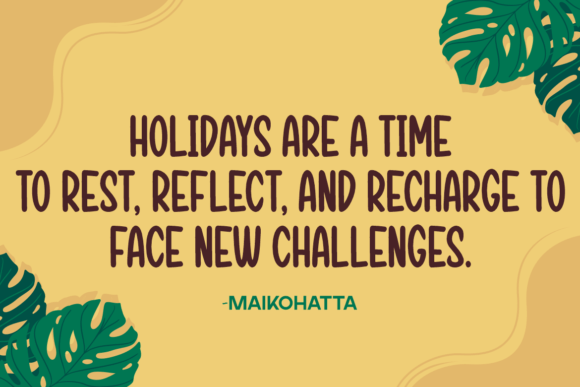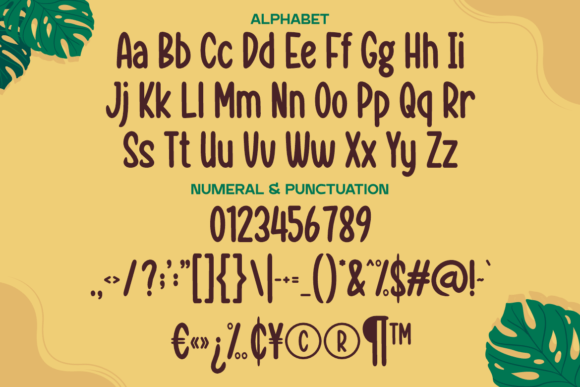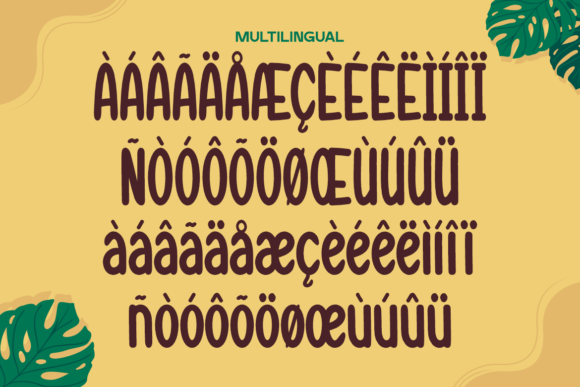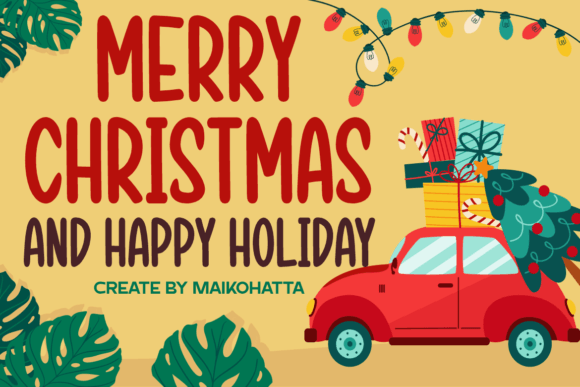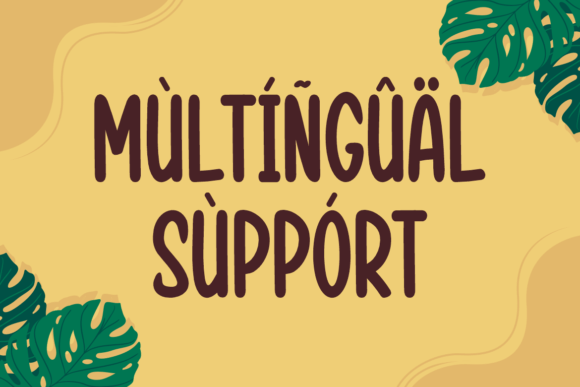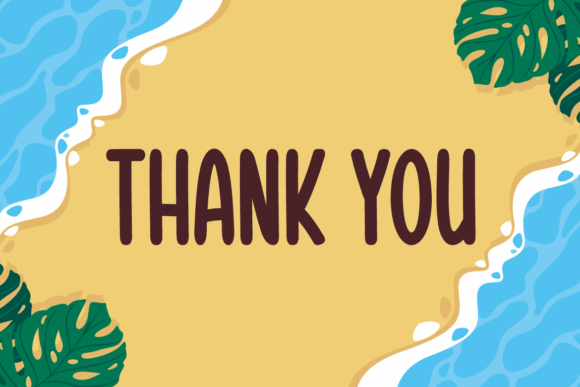
Introduction to Holiday Zone Font
As you sit by the twinkling Christmas tree, surrounded by the warmth and love of the season, you can’t help but feel inspired. The twinkling lights, the festive decorations, and the sound of carols fill your heart with joy and creativity. And then, it hits you – the perfect font to capture the essence of the holiday season. For designers, finding the right font can make or break a creative project, and that’s where the Holiday Zone Font comes in.
This high-quality font is specifically designed to create a Christmas atmosphere and mood, making it a valuable design resource for anyone looking to add a touch of holiday magic to their work. With a transparent background, it’s perfect for graphic designers, greeting card makers, and anyone who wants to add a professional touch to their designs.
Key Features of Holiday Zone Font
- High-quality, unique font design perfect for creative projects and festive designs.
- Features a transparent background, allowing for seamless integration into any design.
- Designed to be versatile and suitable for a wide range of design resources, from digital art to print materials.
- Size: The font family includes multiple styles and weights, including bold, italic, and regular, to cater to various design needs.
- Perfect for adding a festive touch to your design projects, from holiday-themed posters to seasonal greeting cards.
Honest Review: Holiday Zone Font
As a designer, I’m always on the lookout for high-quality design resources to elevate my creative projects. I recently came across the Holiday Zone Font, and I must say, it’s a game-changer.
- ✨ Unique and festive design that’s perfect for the holiday season
- ✨ High-quality font files that are easy to use and customize
- ⚠️ Limited font styles and variations, which might not be suitable for complex design projects
- ⚠️ Transparent background, which can be a challenge to work with if you’re not familiar with design software
Overall, I’m impressed with the Holiday Zone Font’s potential to add a touch of festive flair to any design project. With its unique design and high-quality font files, it’s a valuable resource for designers working on creative projects. However, its limitations might be a drawback for more complex designs. Nevertheless, it’s definitely worth checking out if you’re looking for a fun and easy way to add some holiday cheer to your designs.
The Holiday Zone Font is perfect for a variety of creative projects, including: holiday cards, party invitations, and social media graphics. You can also use it to create a design resource that you can download for free.
Comparison: Merry Script offers a more refined and polished look compared to Holiday Zone Font’s playful and casual vibe.
Does the Holiday Zone Font have a transparent background?
No, the Holiday Zone Font does not have a transparent background. However, the font is designed to be highly customizable, allowing you to easily change the background color or texture to suit your design needs. Additionally, the font’s high-quality design ensures that it will look great on any background.